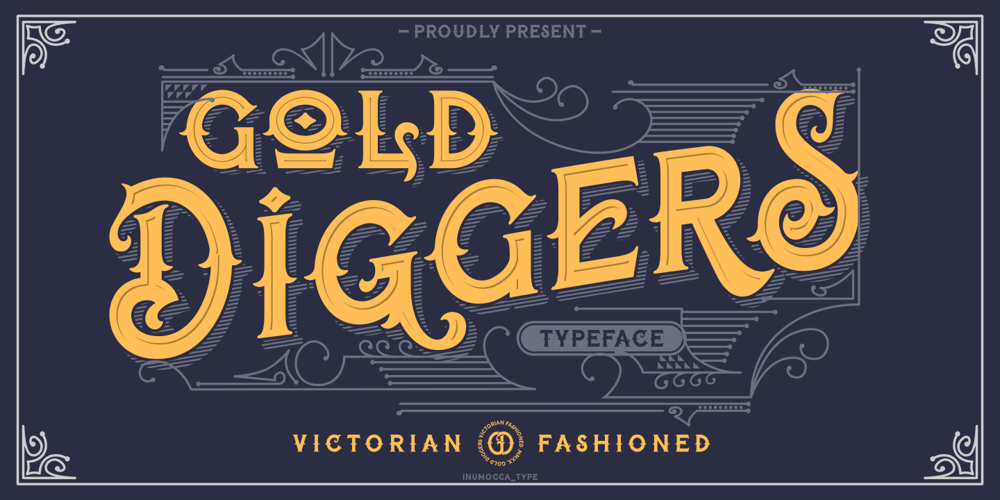
Gold Giggers Font Family was designed by Inu Mocca and published by Inumocca. Gold Giggers contains 1 styles and family package options. Gold Diggers, inspired from Victorian Era with the ornamental and decorative fontWith Variant for the Capital Letters and alternates for changes the unique glyphsfor design needs like Poster, logos, badges product, magazine with vintage tasteand more your project design.- Unique glyphs- Multilingual Characters- UPPERCASE- Lowercase- Numeric- Symbol- Punctuation Character- Alternatesinumocca type